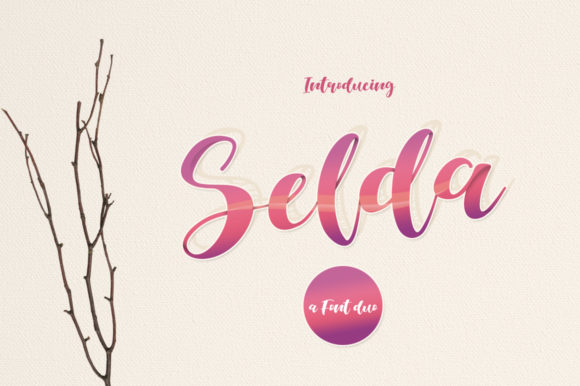
Step into the world of Selda Duo Font, where elegance and charm entwine to create a captivating symphony of letters. This modern calligraphy font duo, crafted by the visionary Khurasan, is a masterpiece of creativity, designed to transform your designs into expressions of pure artistry.
With its playful spirit, Selda Duo Font exudes a sense of joy and exuberance, adding a cheerful touch to every project it graces. Its dual styles, seamlessly blending together, offer boundless opportunities for customization, allowing you to unleash your imagination and create unique designs in an instant.
Picture this: Selda Duo Font adorning your wedding invitations, adding a touch of personal flair to your special day. Envision your logos, posters, and advertising campaigns radiating with elegance and distinctiveness. Let Selda Duo Font dance across your social media platforms, captivating your audience with its charm and sophistication.
Whether you're a seasoned designer seeking to elevate your projects or a creative enthusiast yearning to explore new horizons, Selda Duo Font is your ideal companion. Its versatility knows no bounds, extending from personal branding and packaging design to web design and digital marketing.
Dive into the world of Selda Duo Font and let your creativity soar. Experience the joy of expressing yourself through typography, leaving an unforgettable impression on all who encounter your designs.